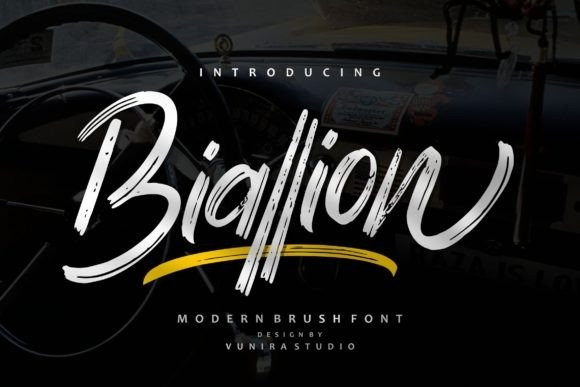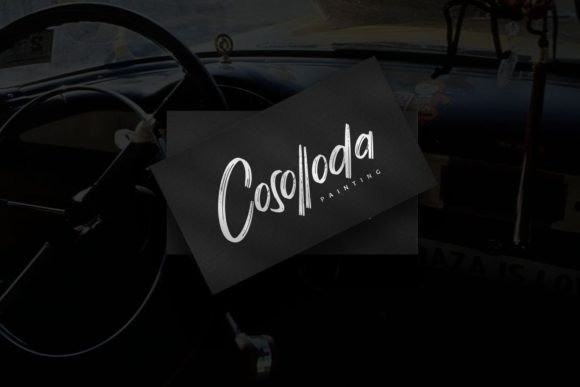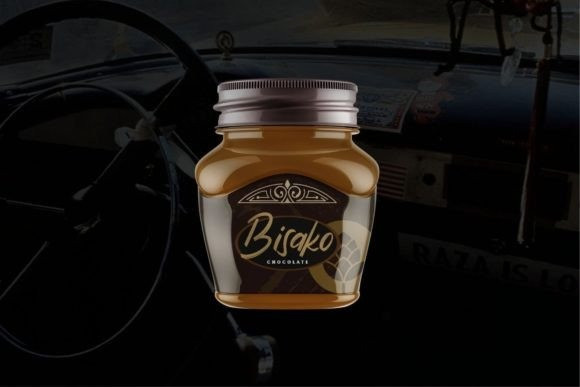
Biallion Font
Biallion is a fresh and modern handwritten brush font. Incredibly versatile, this font fits a wide pool of designs, elevating them to the highest levels. Add this font to your favorite creative ideas and notice how it makes them come alive!